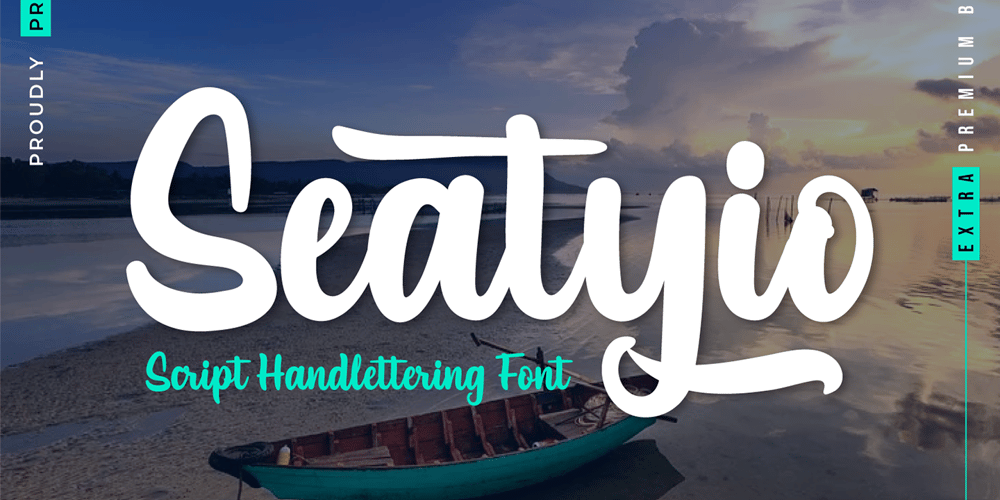
Seatyio Font Family was designed by Rozikan and published by Twinletter. Seatyio contains 1 styles and family package options. Introducing our new Font named SeatyioThis font is designed with a script model that is suitable for writing for outdoor and indoor events, such as traveling or for the title of any particular event. and to be sure this font is not only limited to that purpose but also very special for every need of your project, be it a formal or non-formal project, this font is still beautiful and elegant.start creating awesome designs with this font!This charming font also offers the beauty of abstract typography harmony for a wide variety of design projects, including digital natural handwriting for designs, quote designs, for social media business designs, advertisements, trademarks, food and beverage promotion banners, text, posters, a signature, and all designs require handwriting or whatever design you want.This font is equipped with uppercase, lowercase, numbers, punctuation marks, swhases and several variations on each character including multi-language.==================================================This font is best suited for open type friendly applications. How to get alternative glyphs from open type fonts: http://adobe.ly/1m1fn4YPUA Character Code – Fully accessible without additional design software.do not hesitate anymore start using this font. and Feel free to send any message you want to convey.